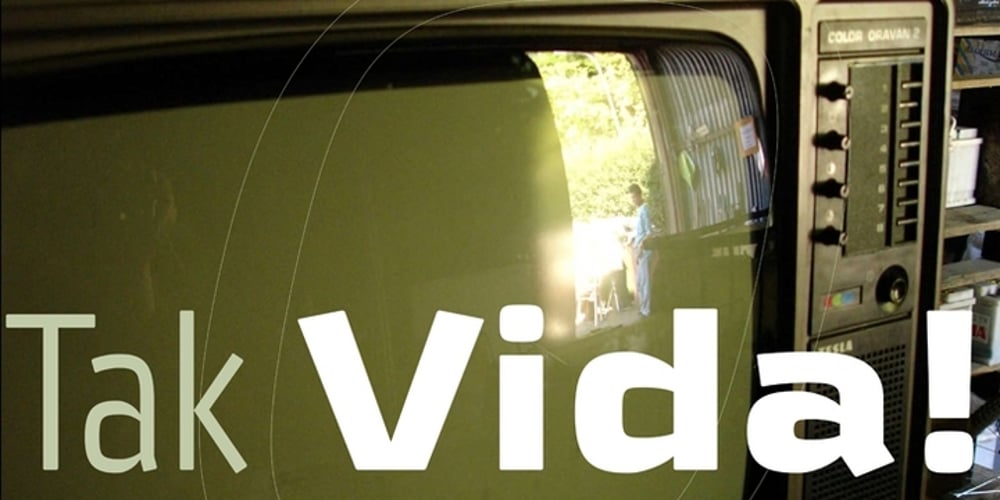
Vida Pro Font Family was designed by František Štorm and published by Storm Type Foundry. Vida Pro contains 34 styles and family package options. The new typeface family Vida was specifically designed for Czech Television in the framework of a competition for a new logo in summer 2006. The drawing of each letter form differs finely in its logic, which is a feature invisible at first. It is constructed on a puristic base, but it doesn’t reject the natural anomalies already known from ages of experience with latin alphabet. That’s why e. g. upper left section of ‘n’ is constructed differently from that of ‘r’, similarly as ‘d’ doesn’t repeat right-bottom ending after ‘u’, ‘9’ is not inverted ‘6’. Such details improve reading in continuous text. The behavior of all weights is consistent on CRT, plasma or LCD screens due to monolinear design; the lightest weight doesn’t fade, the darkest isn’t blurred, all is legible and clear in smallest sizes. Stem connections and endings were adjusted to avoid undesirable optical darkening. The goal we desired was to achieve balance appearance in both electronic and printed form.